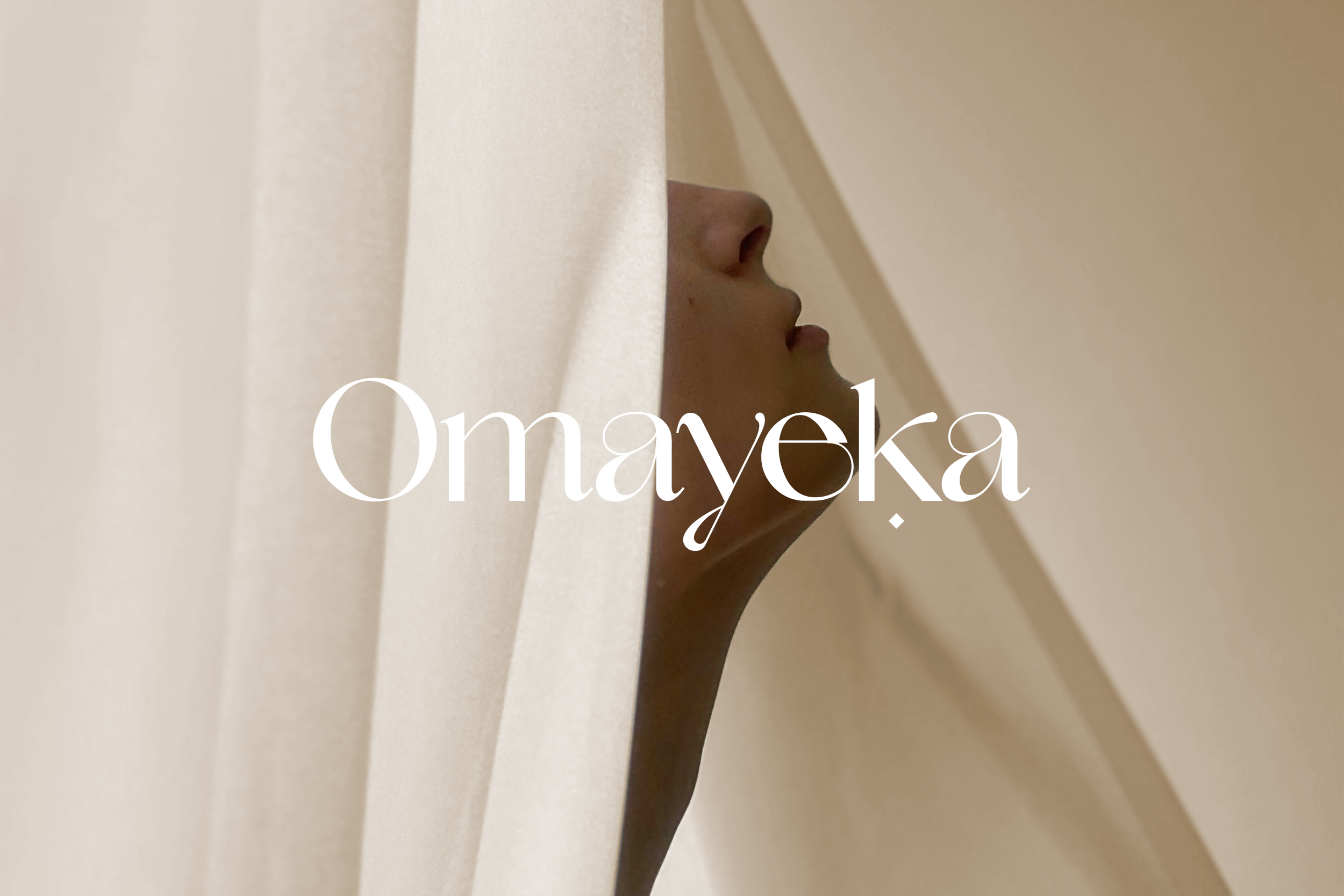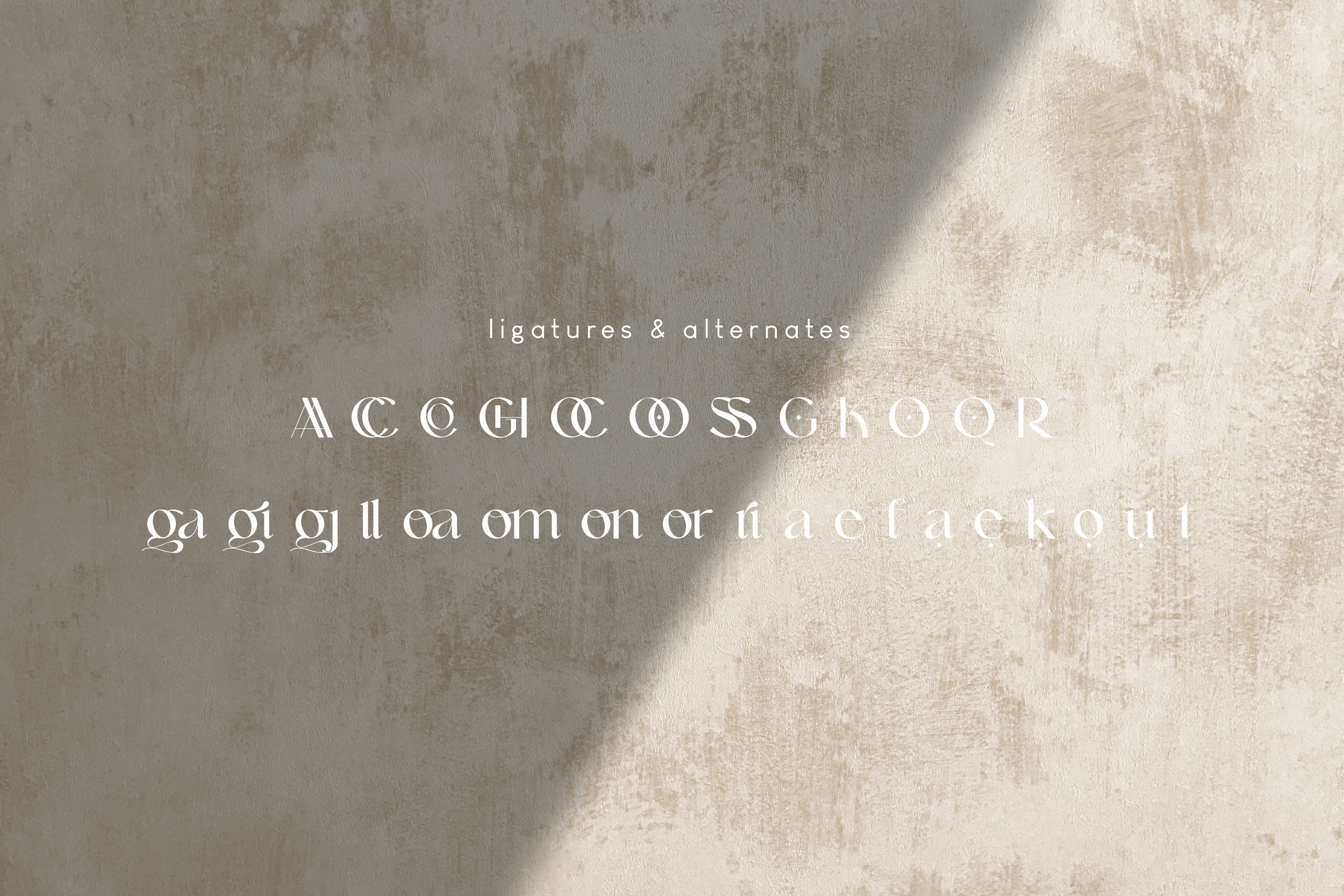
Qanoar Serif Font
It’s a modern serif font family that drawn inspiration from elegant, modern, but classic at the same time. just have a look at this beautiful handcrafted serif typeface. Use it for logo, design, branding, and many more.